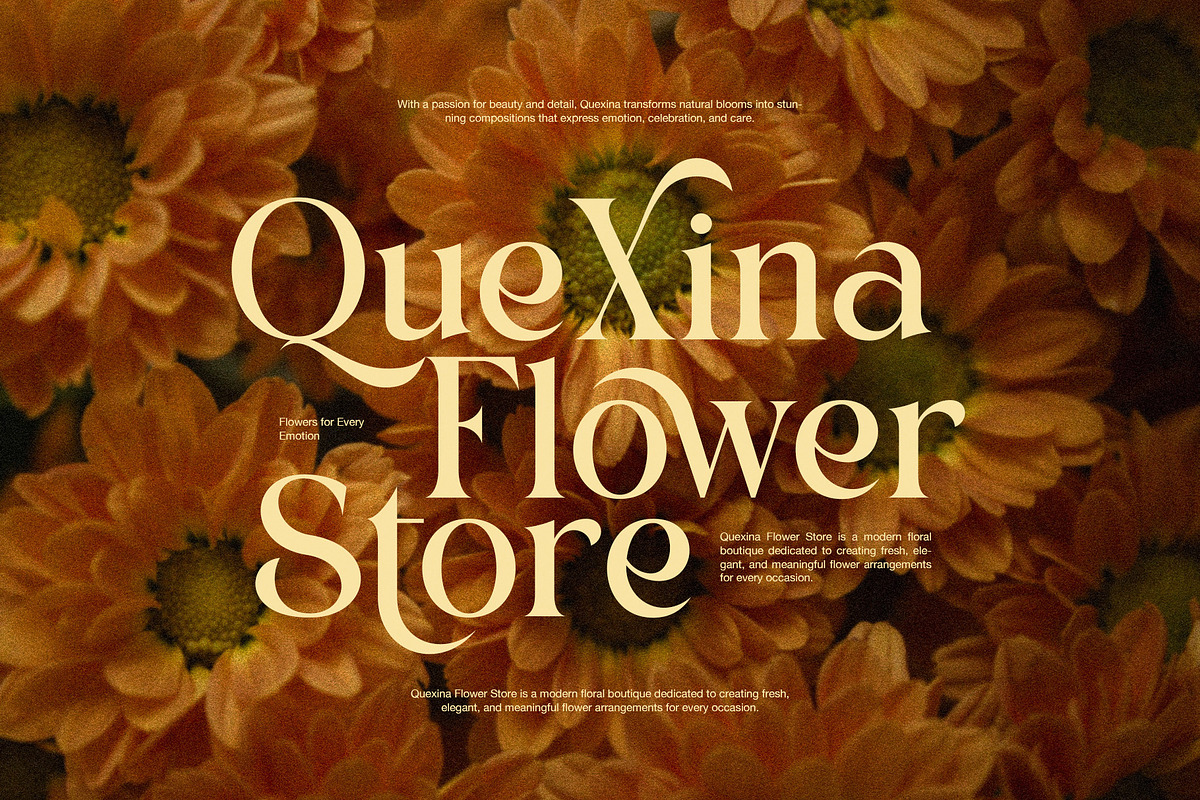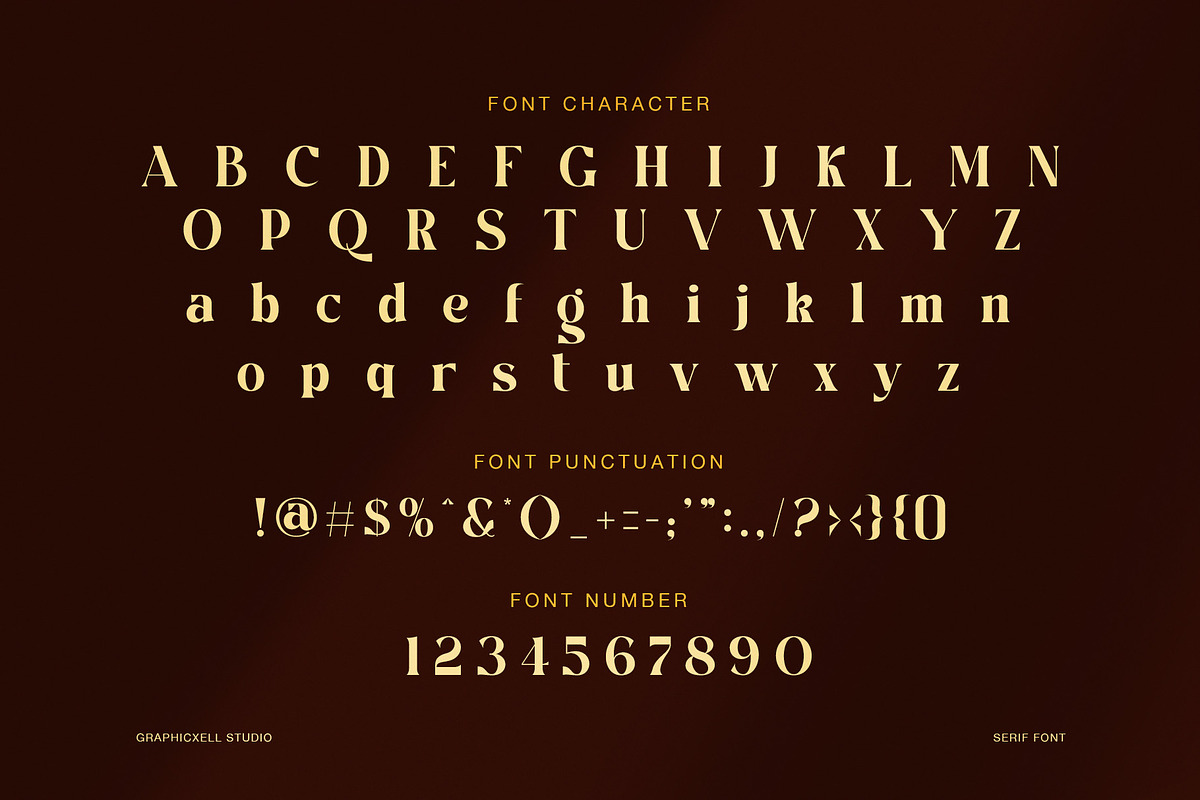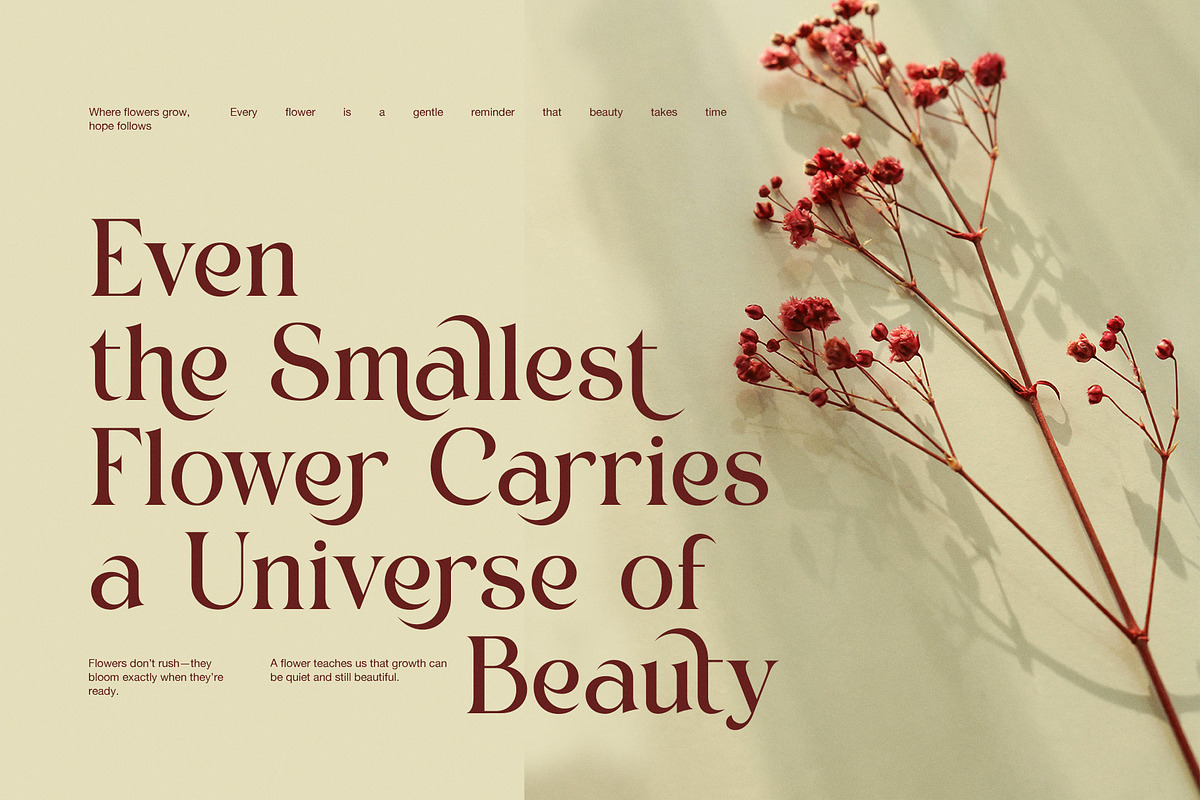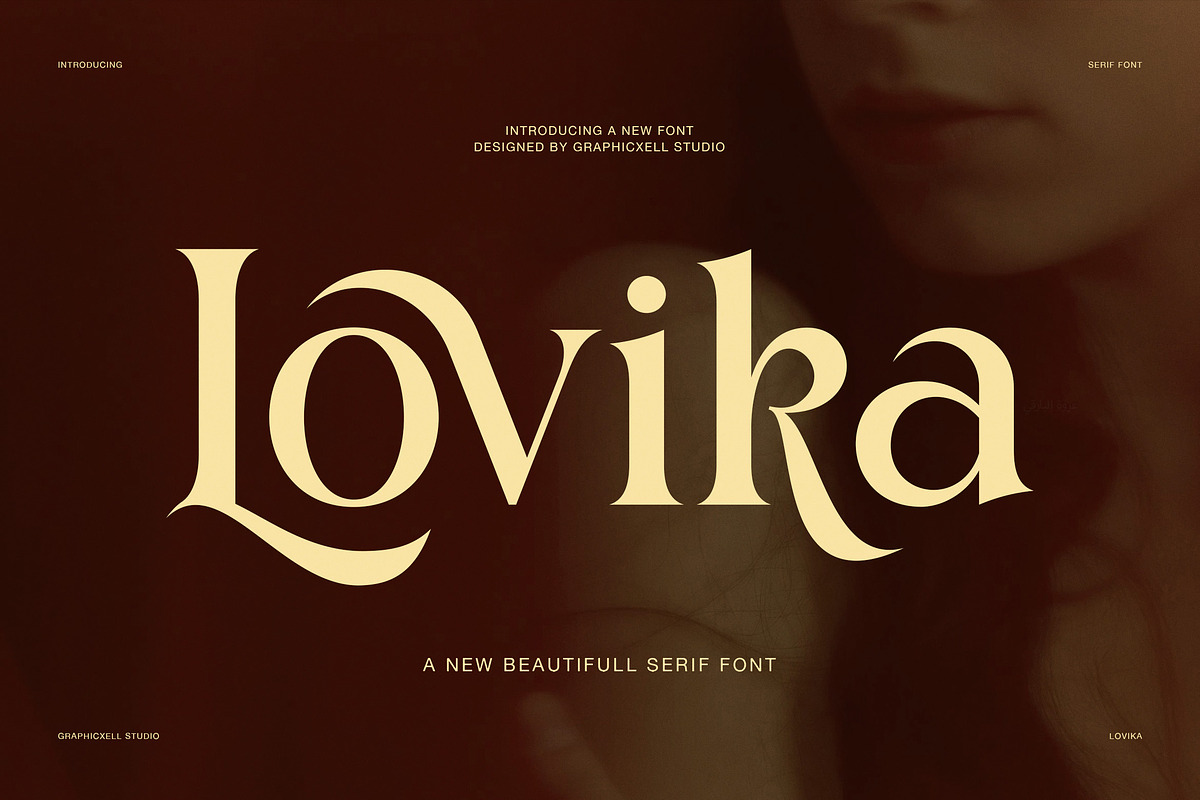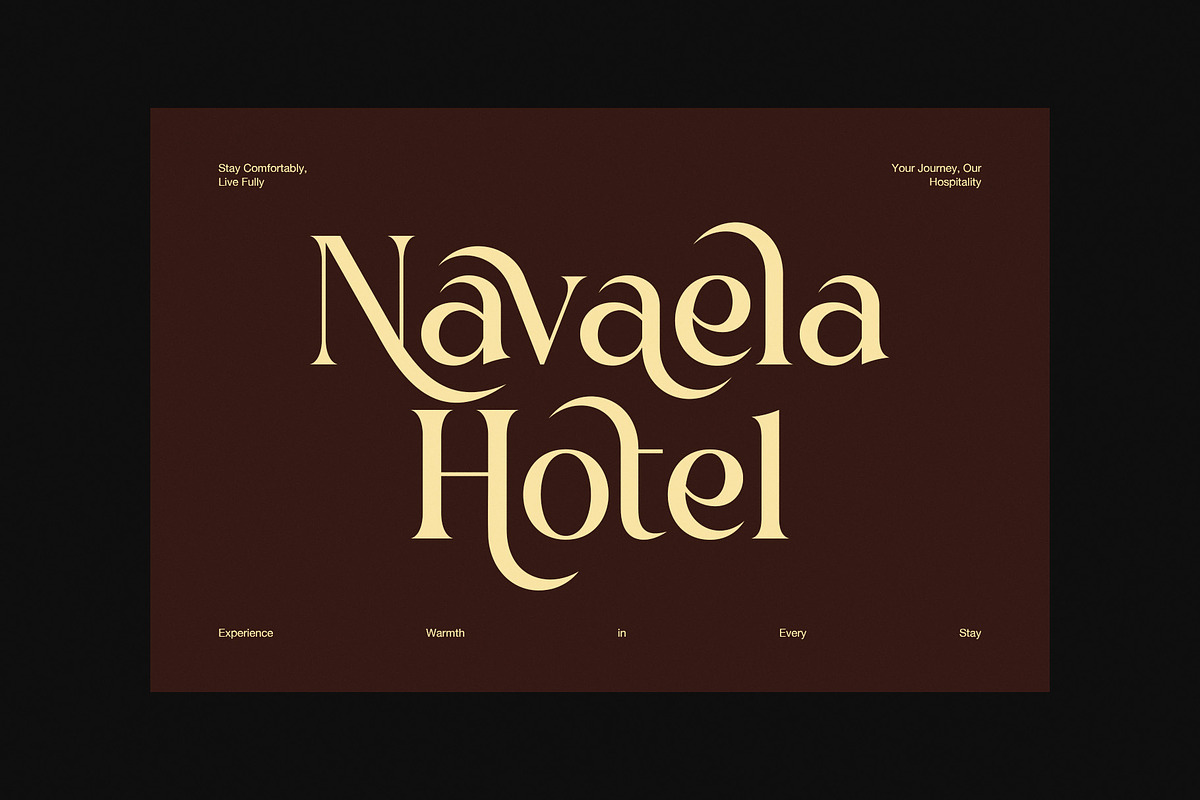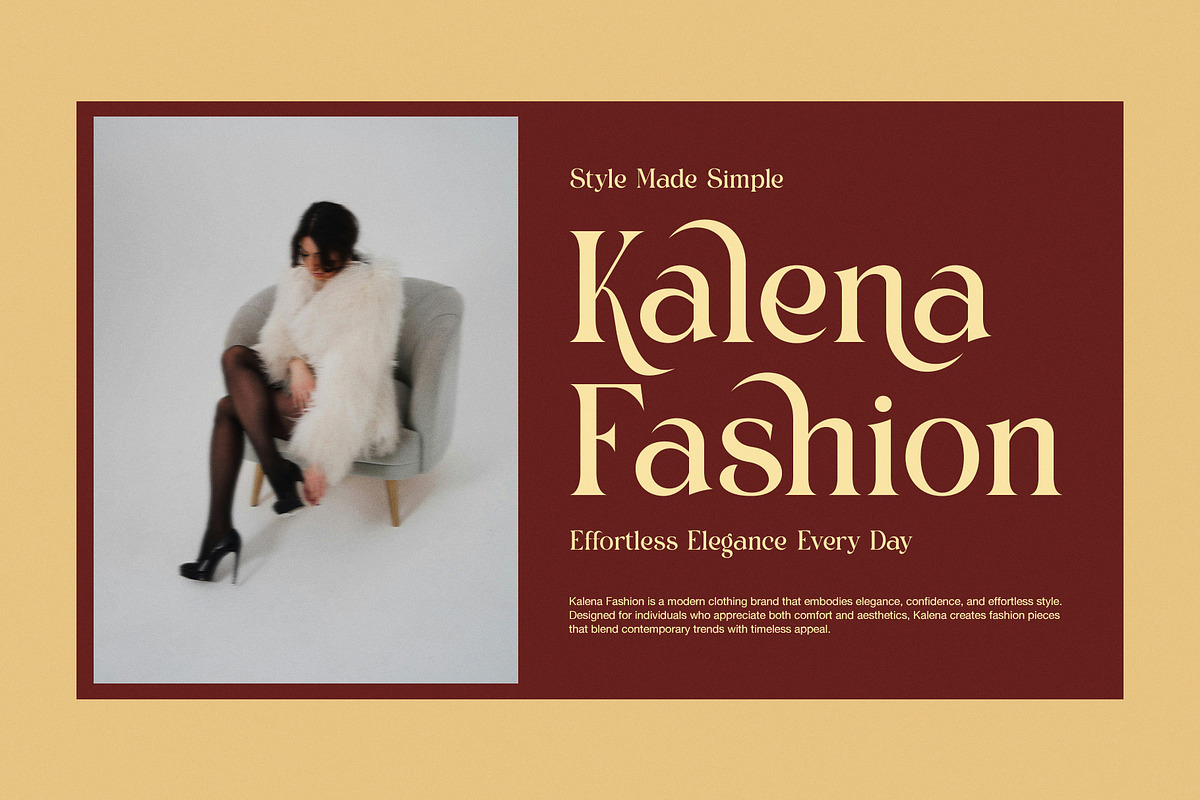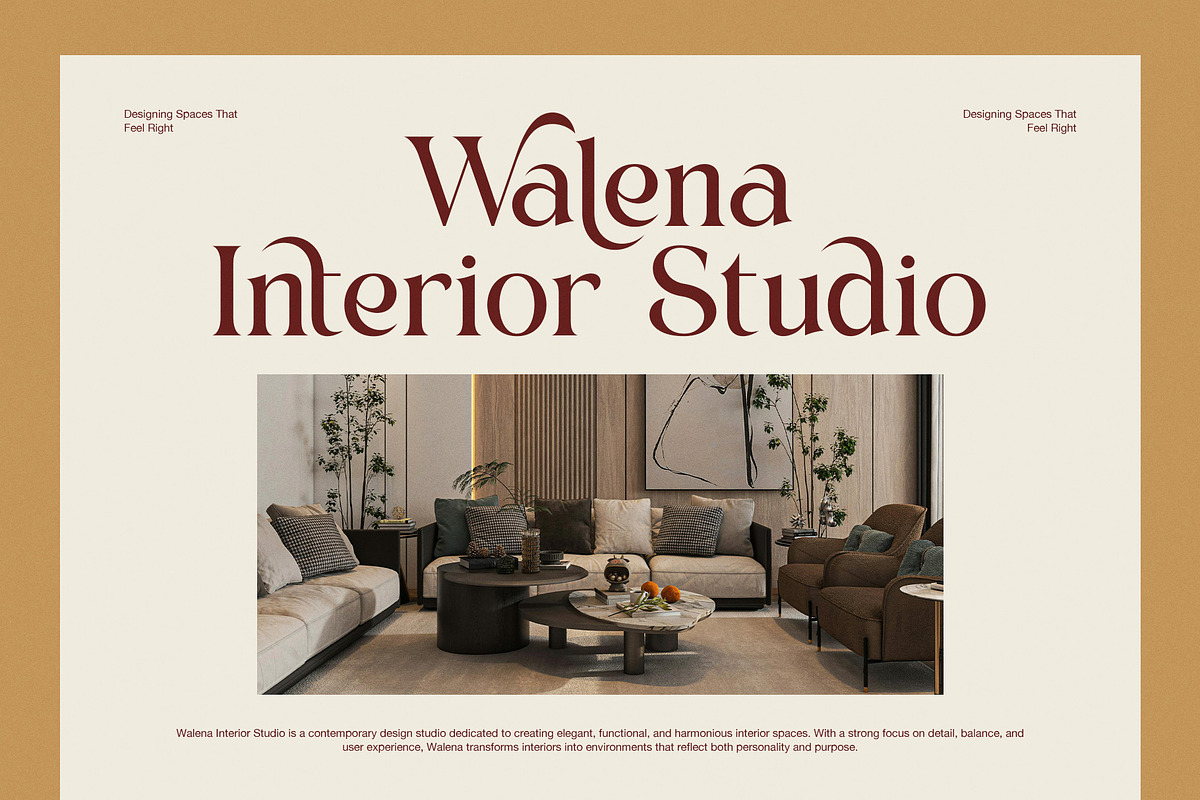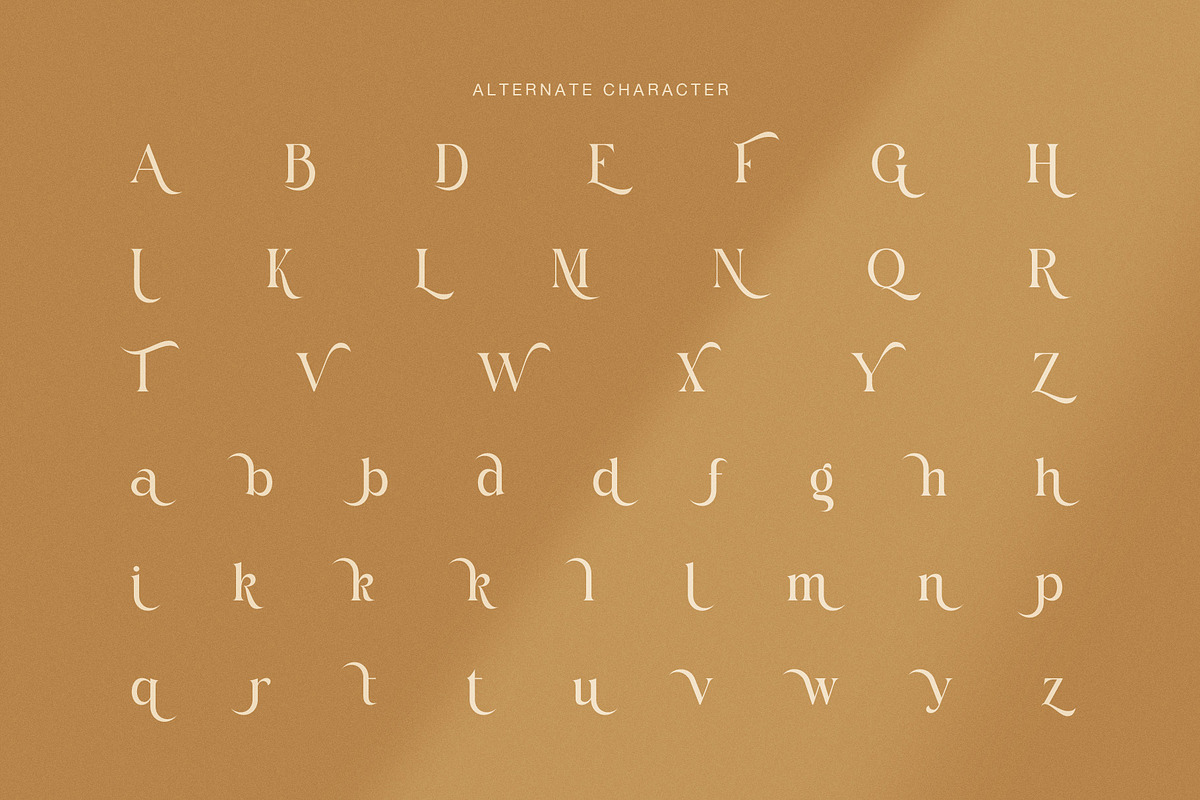
Lovika Elegant Fashion Serif Font
Lovika Elegant Fashion Serif Font is a modern luxury typeface designed for stylish branding, fashion identity, and elegant editorial design. It combines soft curves with strong contrast strokes, so it creates a refined and high-end visual feel. Moreover, it is made for designers who want beauty and clarity in every project. Therefore, it fits perfectly for premium branding work.
In addition, Lovika takes inspiration from modern fashion magazines and luxury boutique visuals. Because of this, it works well for logos, headlines, packaging, and editorial layouts. Furthermore, it brings a balanced mix of elegance and modern style. As a result, it helps every design feel more professional and timeless. However, it still keeps a soft artistic touch that makes it visually unique.
Lovika includes many useful design features. For example, it offers smooth ligatures, clean uppercase forms, and elegant alternates. Therefore, designers can create custom letter styles with ease. In addition, it works well with simple sans serif fonts, so contrast becomes stronger and more readable. Furthermore, it is suitable for fashion branding, wedding invitations, social media posts, magazine covers, and luxury packaging.
Elegant serif style
High contrast strokes
Stylish ligatures
Smooth alternates
Fashion editorial look
Luxury branding use
Clean readability
Modern aesthetic feel
Logo and headline ready
Print and digital support
Moreover, Lovika is easy to use across many platforms. Because of this, it supports both digital and print design without losing quality. Therefore, it is a strong choice for creative studios and independent designers. In addition, it keeps its elegance even in small text sizes.
Finally, Lovika brings a timeless and modern mood to every design. Moreover, it helps brands express confidence and elegance at the same time. Therefore, it is perfect for anyone who wants a clean luxury look. In conclusion, Lovika Elegant Fashion Serif Font delivers style, balance, and modern beauty in one complete typeface.